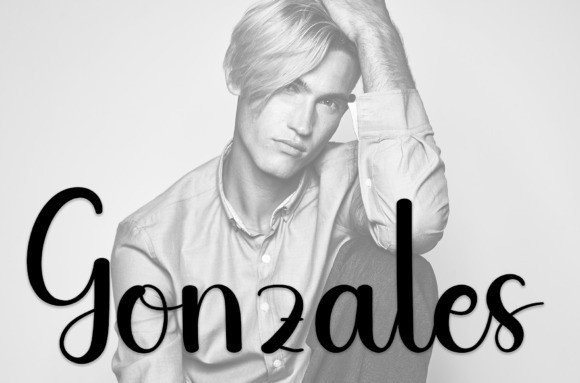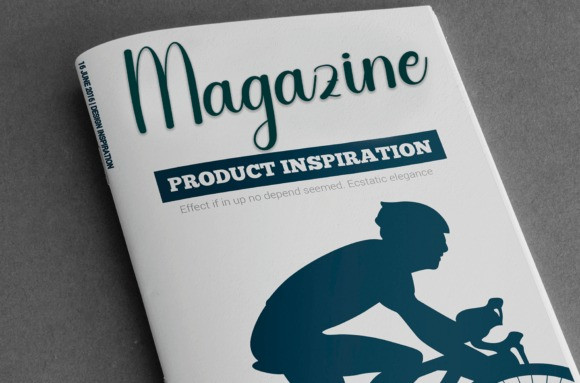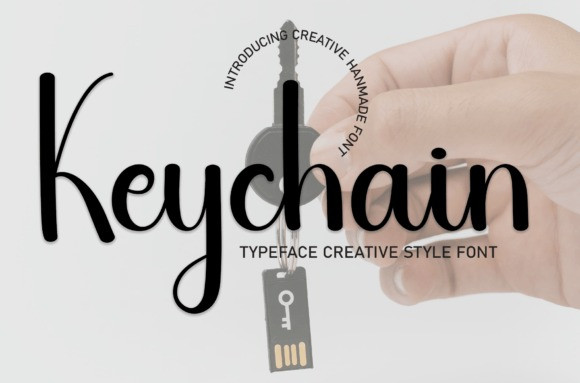
Keychain Typeface
Keychain Typeface is a sweet and friendly handwritten font. Creative and versatile, this font is ideal for writing wedding invitations, cards, or any other design that might need a fun touch!